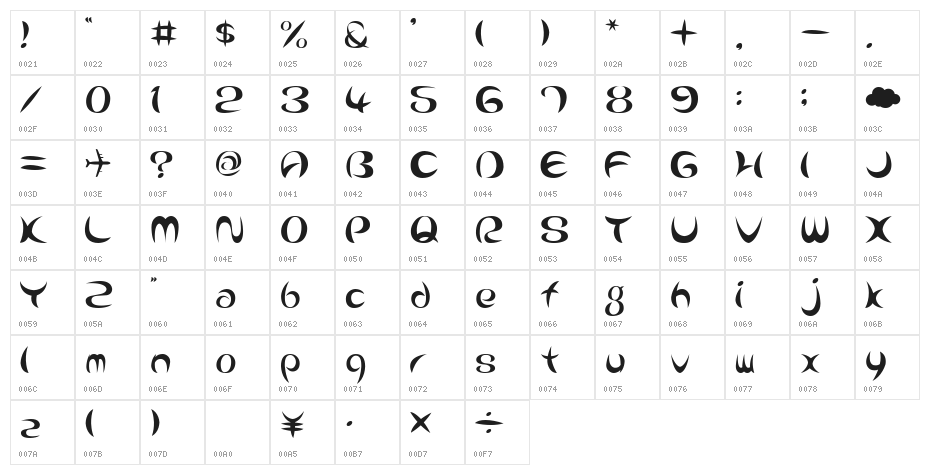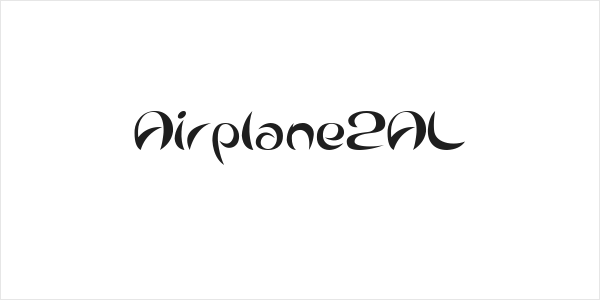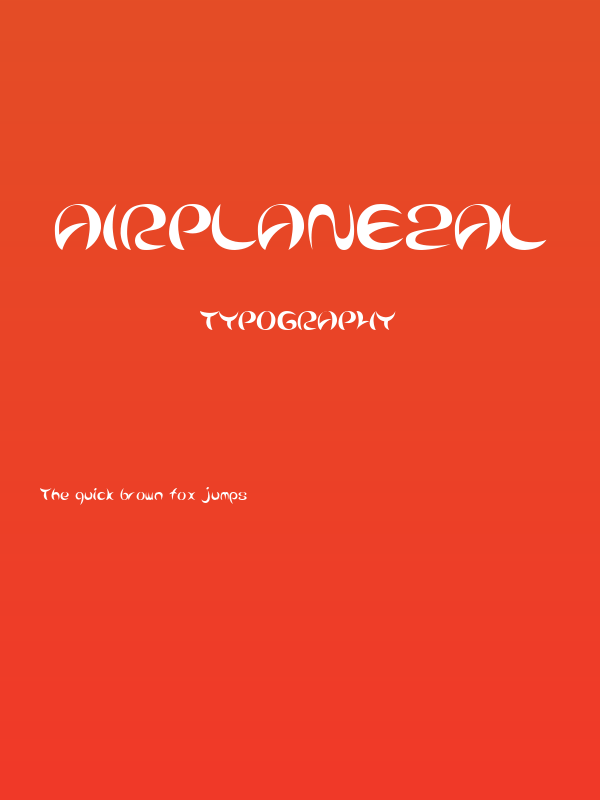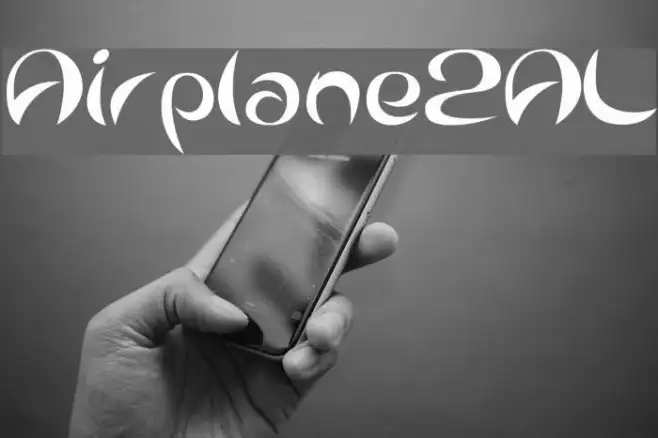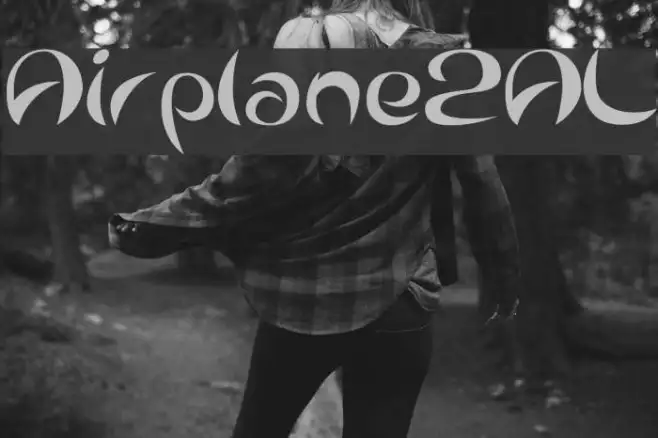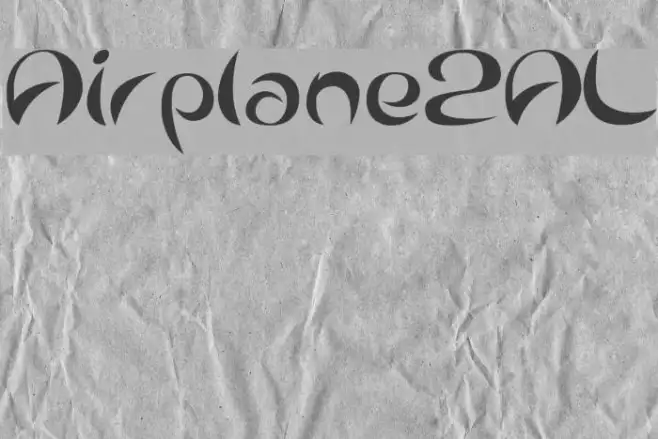
Airplane2AL Font
Airplane2AL Description
This font features a highly decorative and unique style, characterized by its bold, curvilinear forms and sharp, pointed edges. The letters exhibit a dynamic flow, with each character appearing to have a sense of motion. The uppercase and lowercase letters maintain a consistent thematic design, with the lowercase being slightly more compact. Numbers and special characters follow the same stylistic cues, ensuring uniformity across all glyphs. The font's artistic flair makes it stand out, with its dramatic curves and angles creating a visually striking appearance.
| Proposed Projects | Ideal for creative projects such as posters, album covers, or branding that requires a bold, artistic touch. |